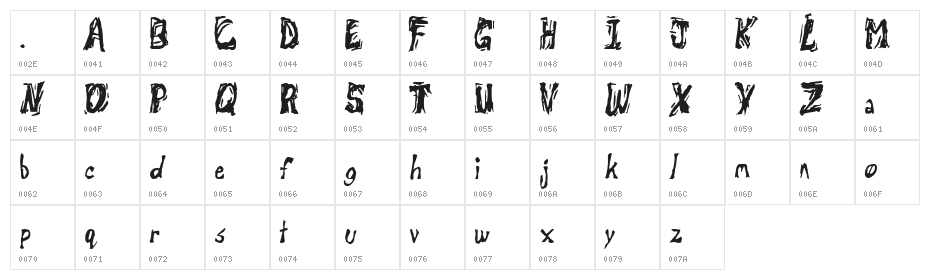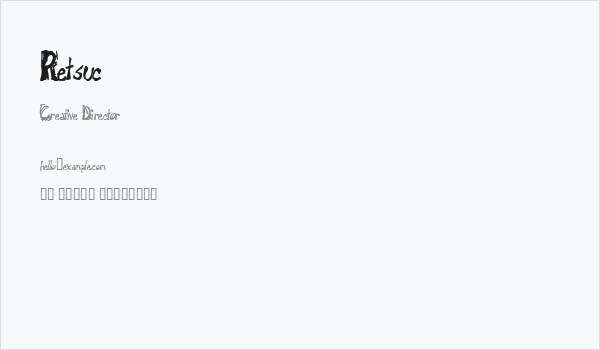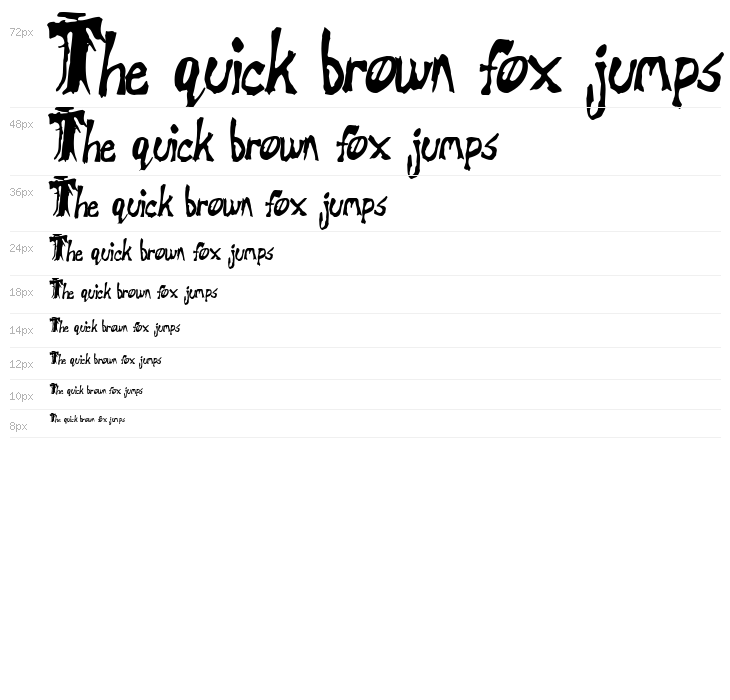
Retsuc Font
Retsuc Description
This font exhibits a rugged, distressed style with an organic, hand-drawn appearance. The uppercase letters are bold and jagged, resembling torn paper or rough brush strokes, giving a sense of movement and energy. The lowercase letters maintain a similar aesthetic but with slightly smoother curves, adding a touch of readability. The overall design is chaotic yet artistic, making it stand out for creative projects. The absence of numerals and special characters suggests a focus on artistic expression rather than functionality.
| Proposed Projects | Ideal for album covers, posters, or any creative project needing a bold, artistic touch. |